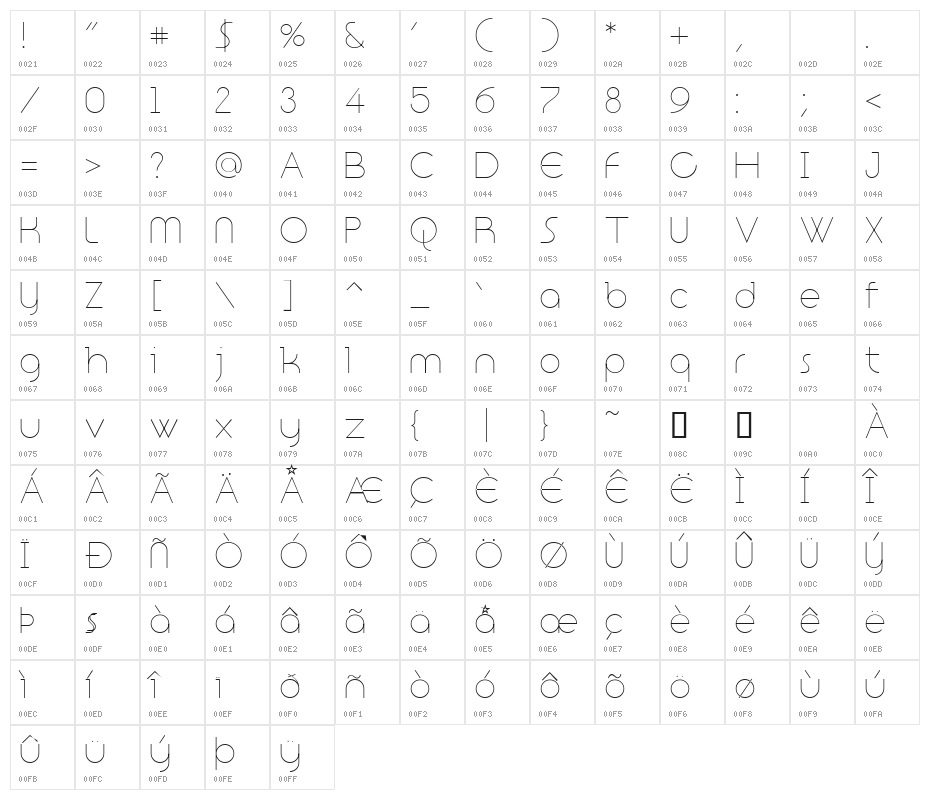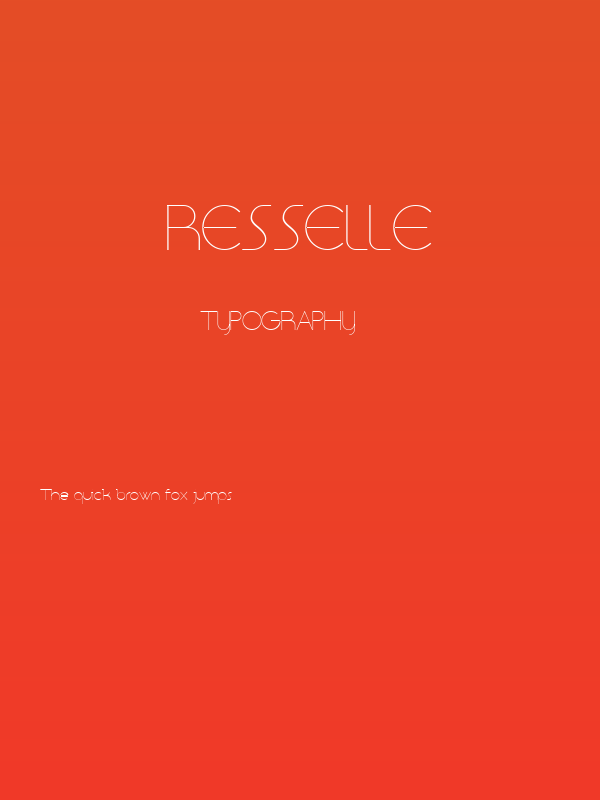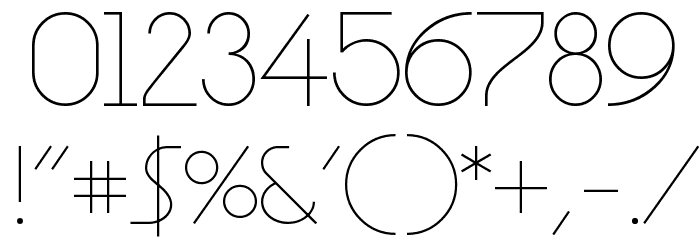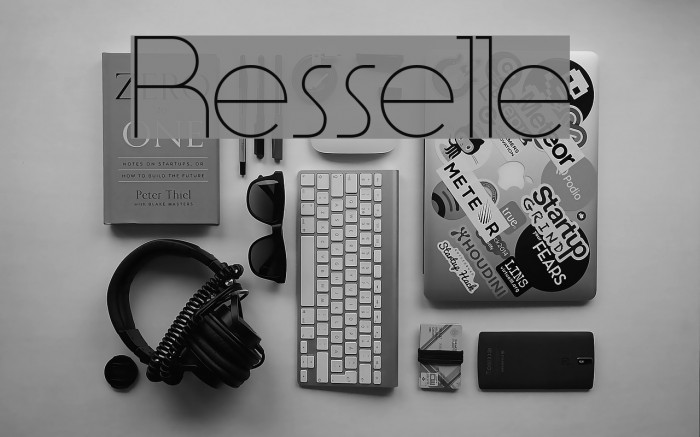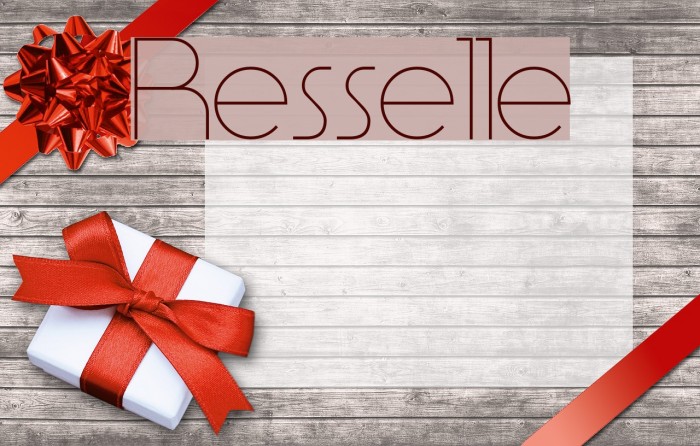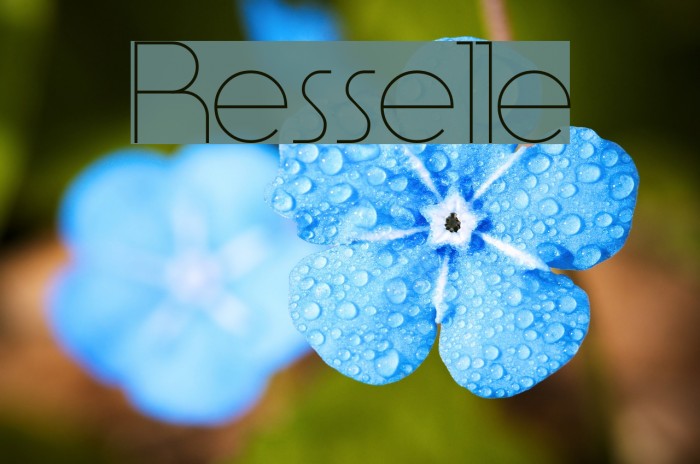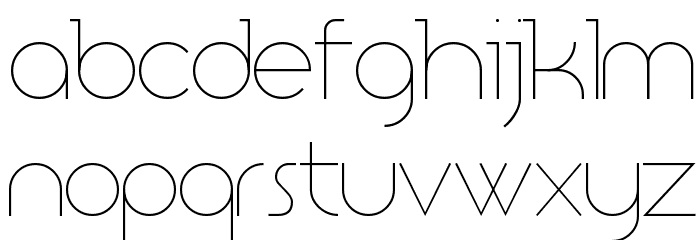
Resselle Font
Resselle Description
This font features a sleek and modern design with geometric influences. The characters are composed of thin, uniform lines that create a minimalist and airy appearance. The uppercase letters are tall and elegant, while the lowercase letters maintain a consistent style with rounded edges and smooth curves. The numerals are clear and easy to read, matching the overall aesthetic. Special characters are included, maintaining the same thin line style, adding versatility to the font. This typeface is ideal for projects that require a contemporary and sophisticated look.